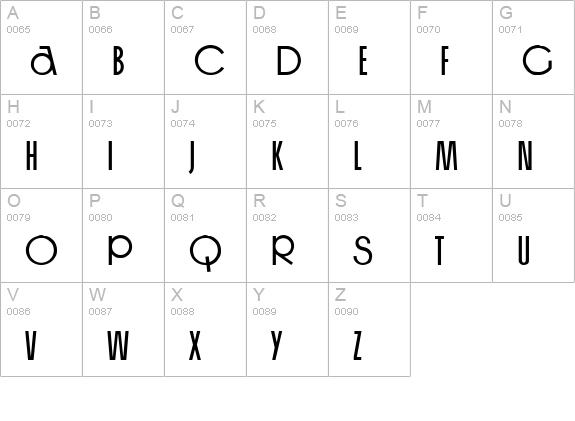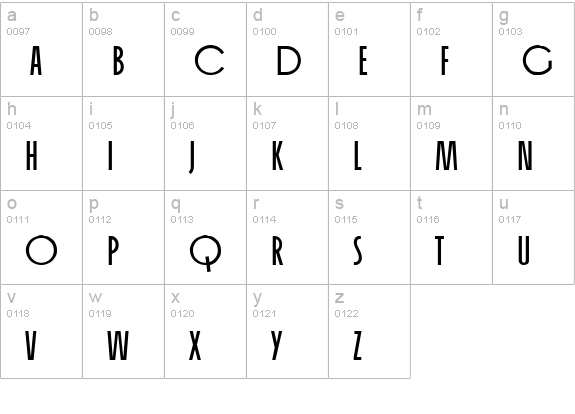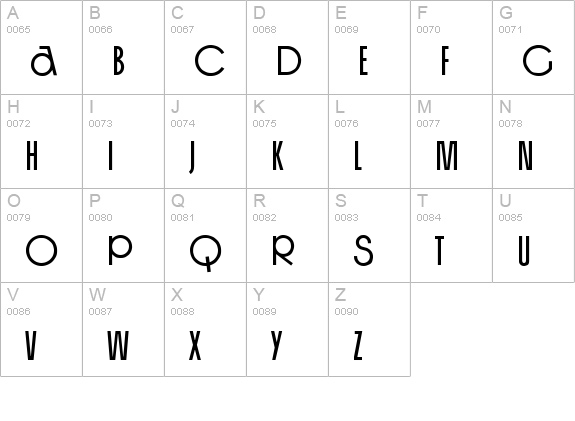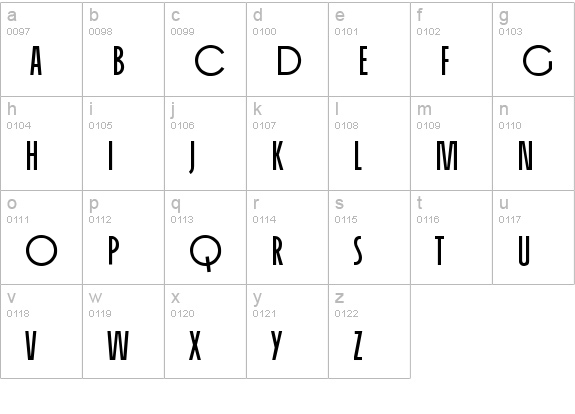
Mackintosh SF Font Details
Mackintosh SF font is a stunning display typeface that exudes elegance and sophistication. With its clean lines and modern look, this font is perfect for adding a touch of class to any design project. The sleek, geometric shapes of the letters give it a contemporary feel, while the slightly rounded corners add a sense of warmth and approachability. What sets Mackintosh SF font apart is that it is not only visually appealing, but also freely available to download at FontsMarket.com. This means that you can easily access this beautiful font without any cost, making it a truly valuable asset for designers, artists, and anyone looking to enhance their creative projects. Whether you're designing a logo, creating a poster, or designing a website, Mackintosh SF font will elevate your work to new heights. Its versatility allows it to be used in a wide range of contexts, from bold headlines to elegant body text. The attention to detail in this font is evident in every letterform, ensuring legibility and visual impact at any size. The generous spacing between characters ensures readability, while the consistent stroke width adds a sense of balance and harmony. Mackintosh SF font is a true gem in the world of typography. Its timeless design and freely available nature make it an indispensable tool for any designer. So why wait? Head over to FontsMarket.com and download this incredible font today, and let your creativity soar to new heights.